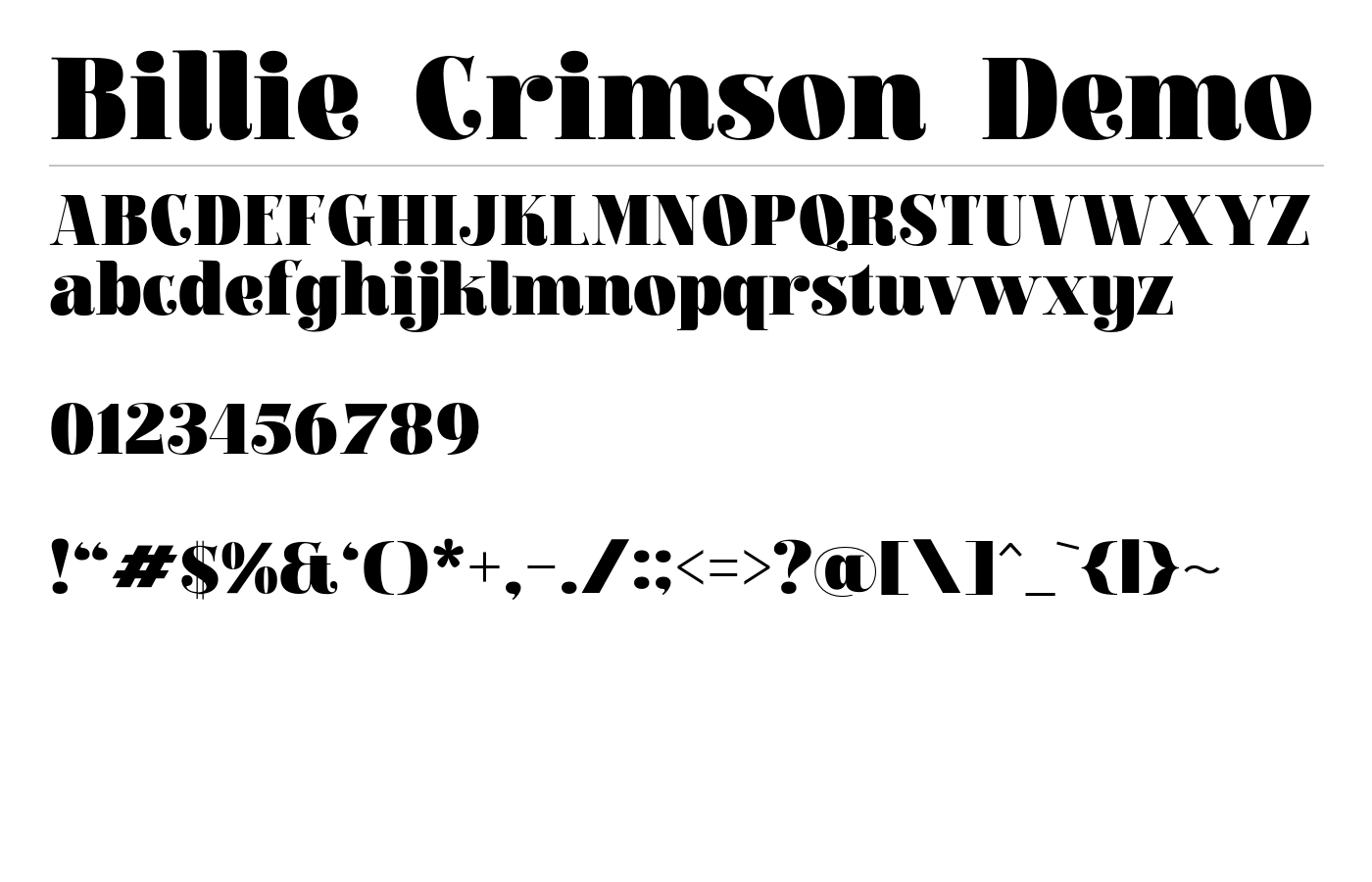
Billie Crimson Demo is a bold, modern serif font with strong contrast between thick and thin strokes, featuring unique, stylized letterforms that combine classic serif elegance with a contemporary twist. Its wide, confident shapes and high contrast make it perfect for striking headlines, logos, and fashion branding where a bold, dramatic impression is desired. This font works well in design contexts that seek to communicate sophistication with a touch of flair and personality.
Billie Crimson Demo Font
About Billie Crimson Demo Font
| Font family | Billie Crimson Demo Font |
| Designer | Leterhend Studio |